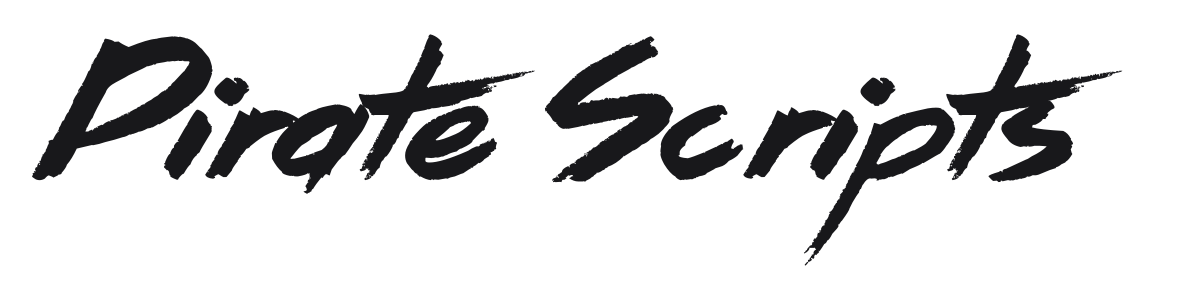
Pirate Scripts
Pirate Scripts is a raw, fast brush script with heavy ink texture and an aggressively slanted hand. The strokes feel like they were laid down quickly, with frayed endings and irregular edges that give it genuine roughness. It suits anything that needs a sense of danger, rebellion, or hand-crafted urgency.